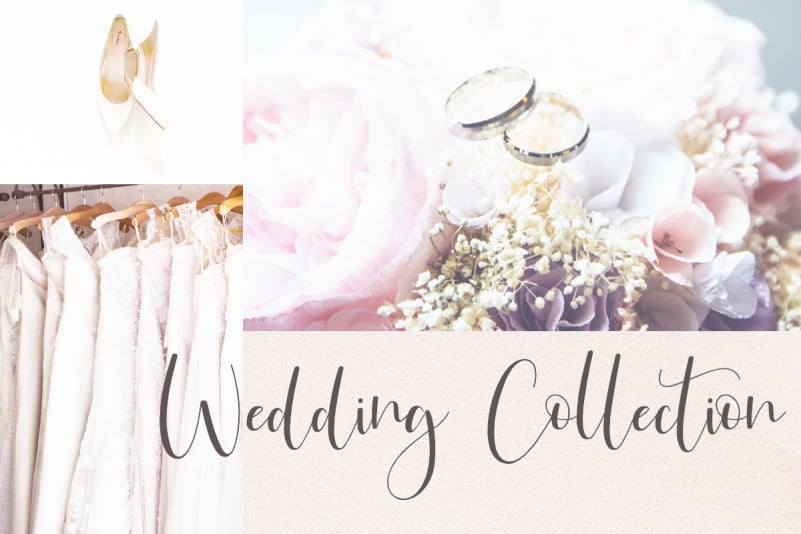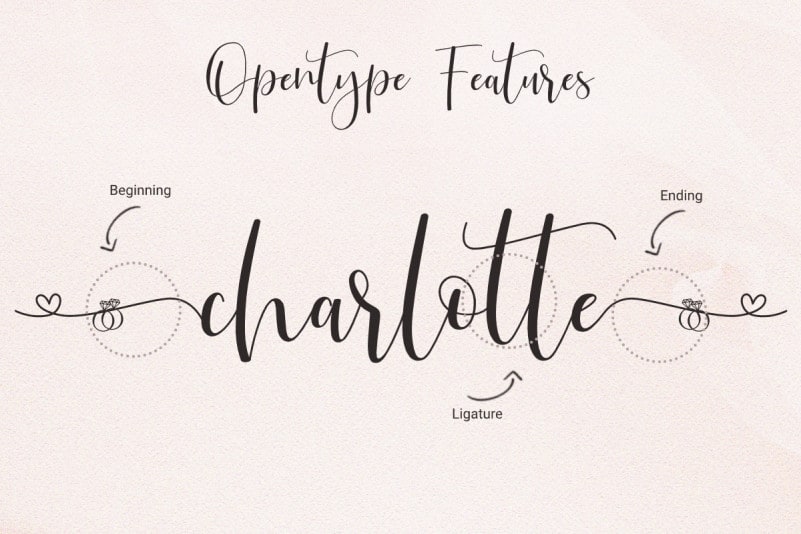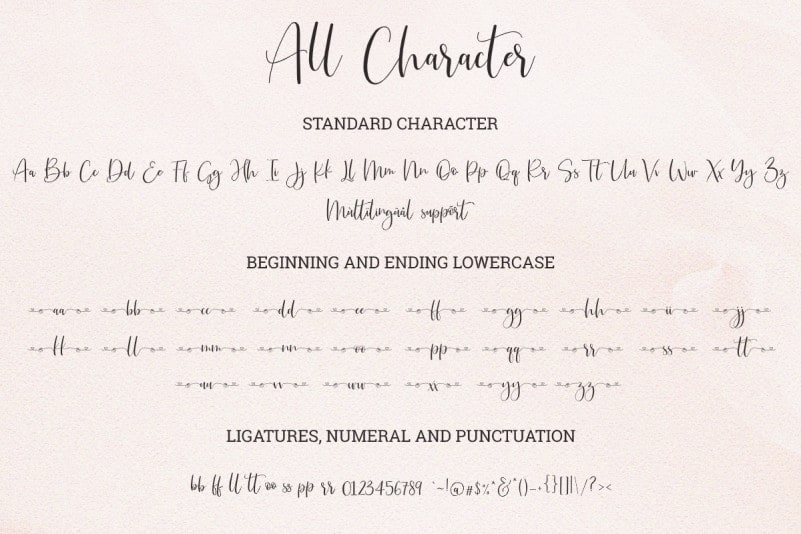
Just Love Script Font
Just Love Script Font is a sweet and relaxed handwritten typeface. It is PUA encoded which means you can access all of the glyphs and swashes with ease! It features a varying baseline, smooth lines, gorgeous glyphs and stunning alternates. Fall in love with its incredibly versatile style and use it to create spectacular designs!